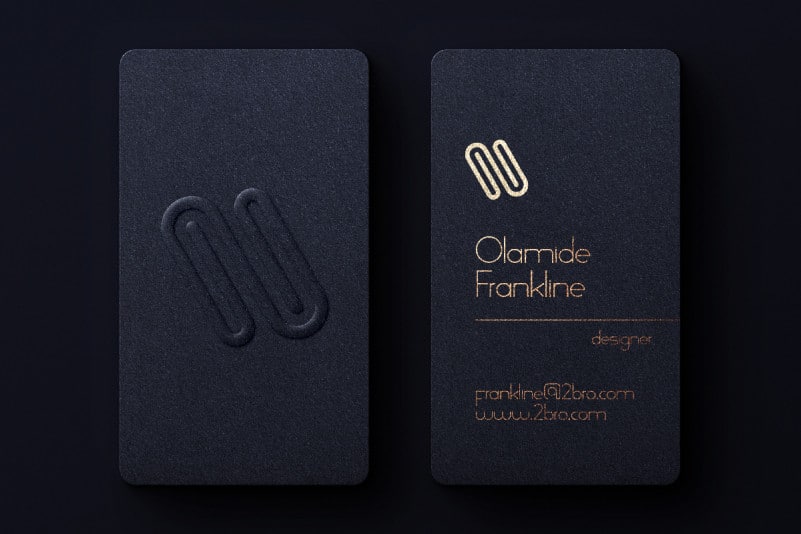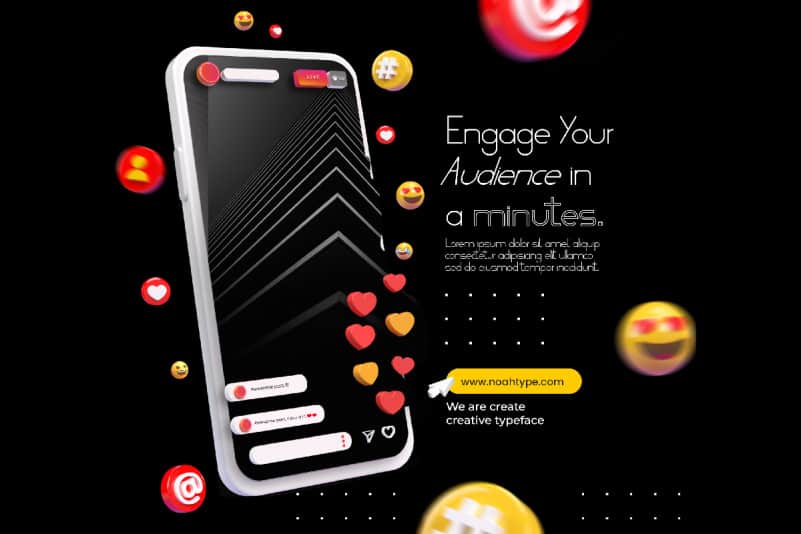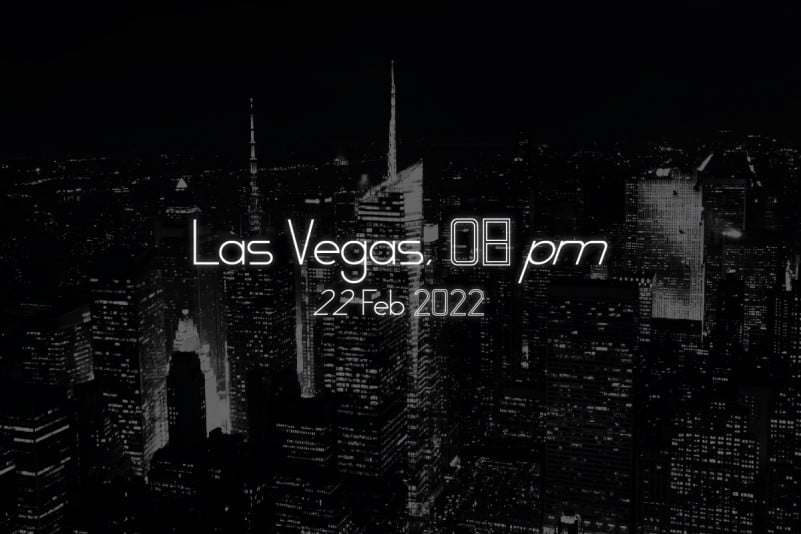
George Sight Sans Serif Font
George Sight Sans Serif Font is a casual modern sans serif display font family. The font was inspired by many startup and technology company. The font has a unique modern style that will bring the authentic excusive touch to the design. It will also works for company, business, real estate, technology, health products etc
George Sight Sans Serif Font has three styles : Reguler, Italic and Outline. It includes full set of Uppercase and Lowercase Basic Characters, Numerals and Punctuation, also it contains ligatures to make it awesome. You can also combine two or more styles on the text like we did on the cover, so you will great even more unique and special font. The font is perfect for many projects, headlines, logos, poster, tittle, products, etc